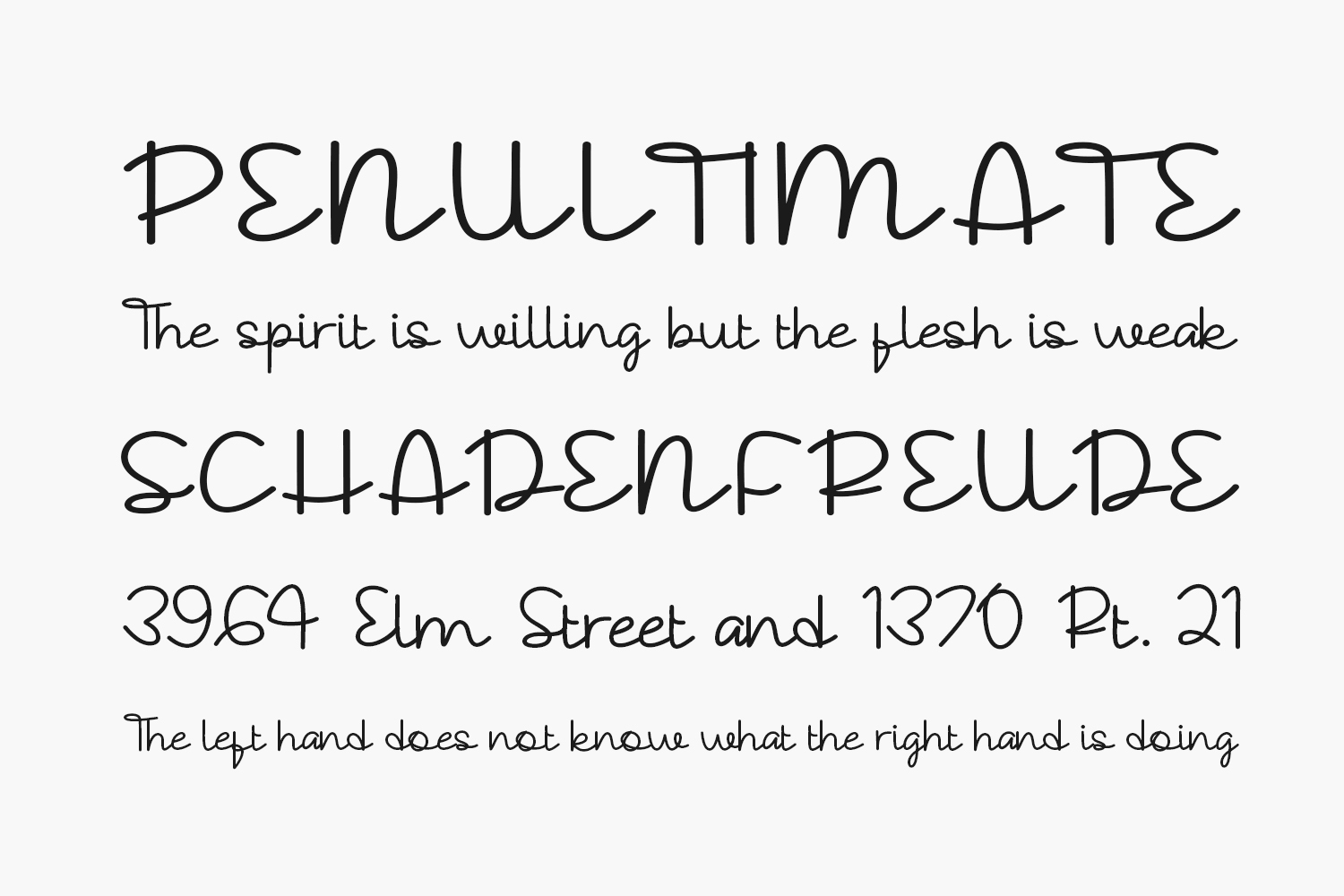
Replay Time Free Font was is a delicate, elegant, and flowing handwritten font. It has beautiful and well-balanced characters and as a result, it matches a wide pool of designs. Fall in love with its incredibly versatile style and use it to create spectacular designs. Replay Time Free Font was designed by Alpaprana Studio and is free for personal use only. Please purchase the full version for commercial use.